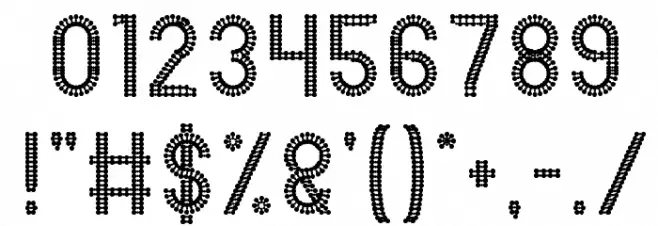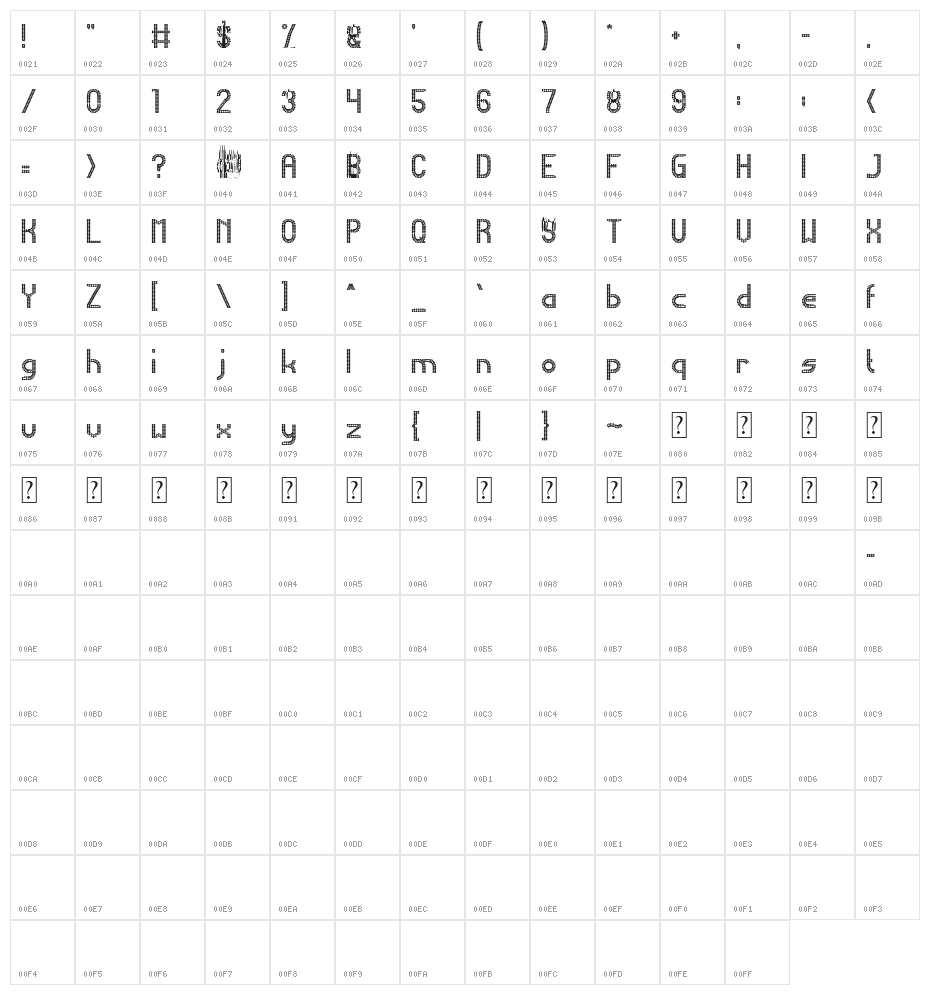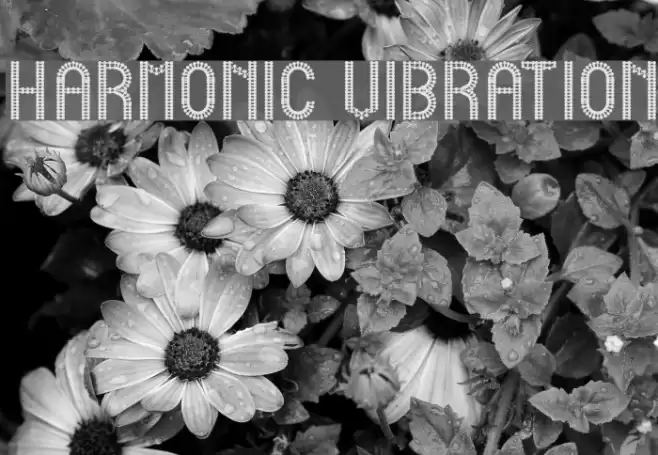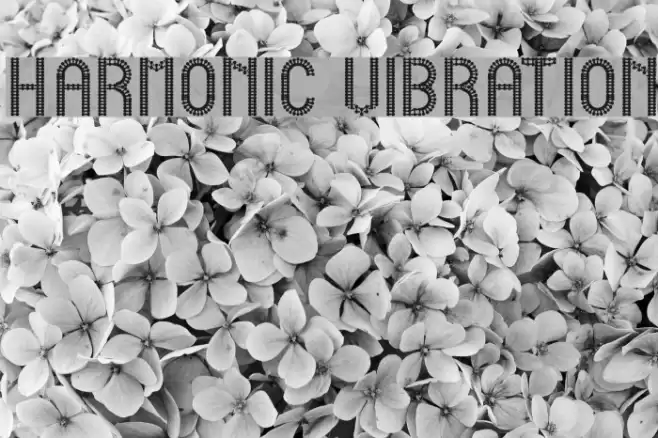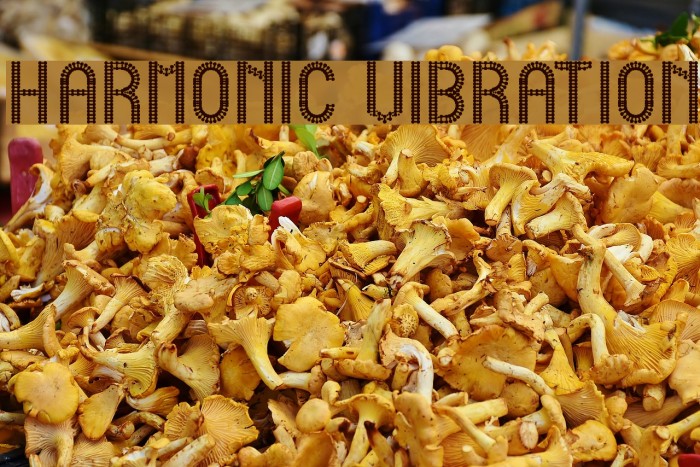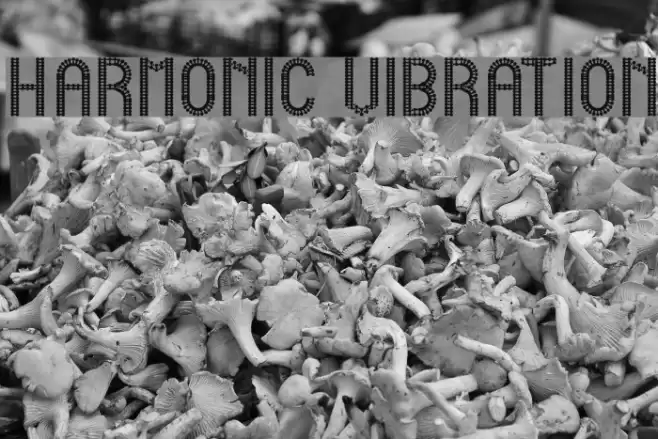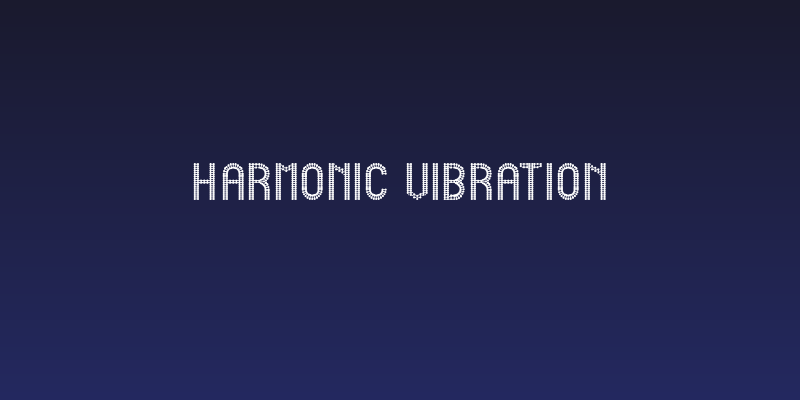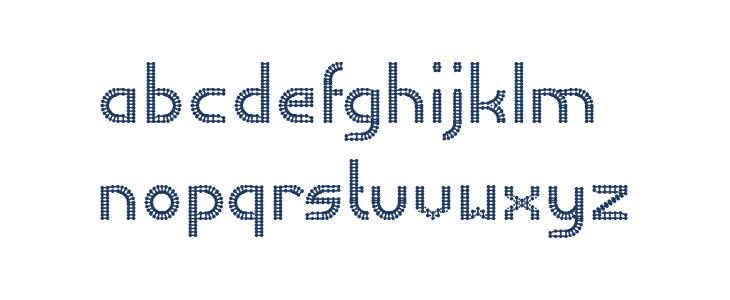
HARMONIC VIBRATION Font
HARMONIC VIBRATION Description
This font features a unique design where each character is composed of a series of small, evenly spaced dots, creating a dotted outline effect. The characters maintain a consistent height and width, giving the font a uniform appearance. The style is playful and modern, with a decorative flair that makes it stand out. The uppercase and lowercase letters are distinct yet harmonious, and the numbers and special characters follow the same dotted pattern, ensuring a cohesive look across all elements. This font is ideal for projects that require a touch of creativity and uniqueness.
| Proposed Projects | Ideal for creative projects such as posters, invitations, logos, and branding materials that require a distinctive and eye-catching font. |